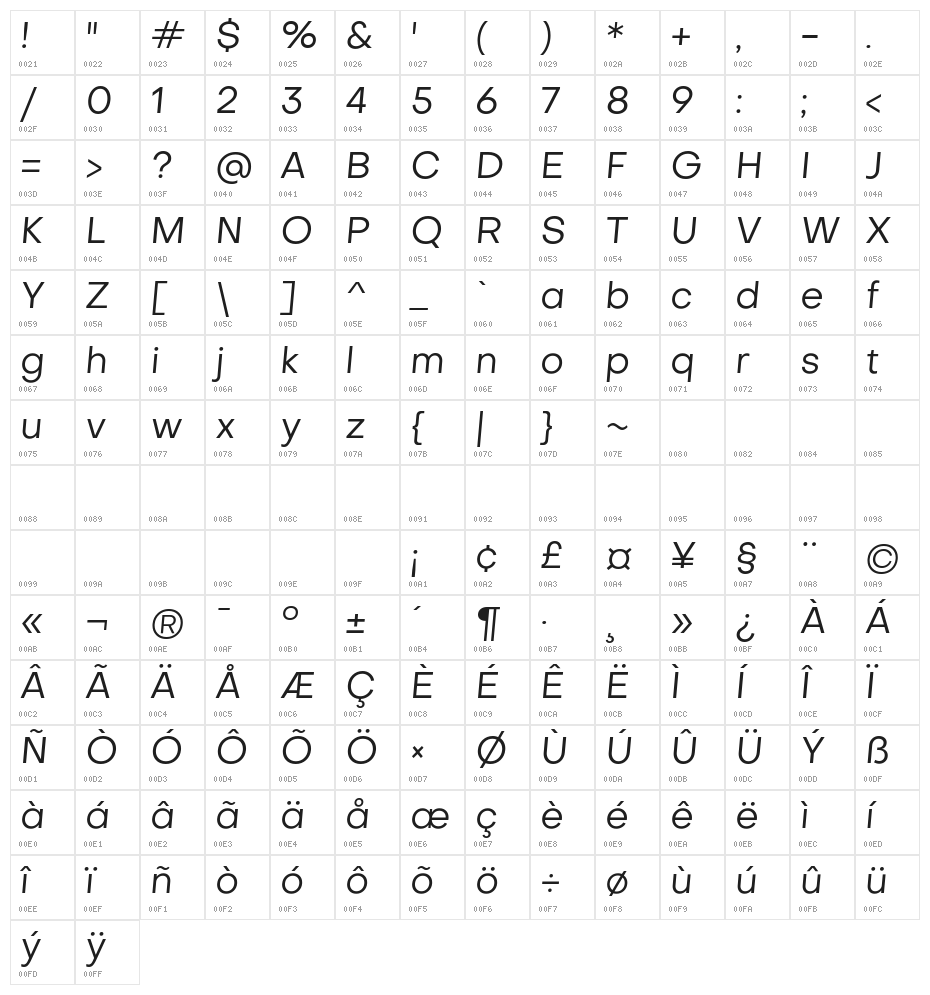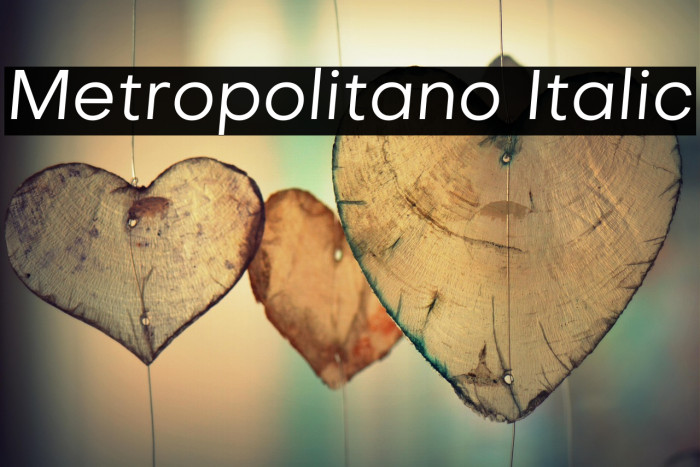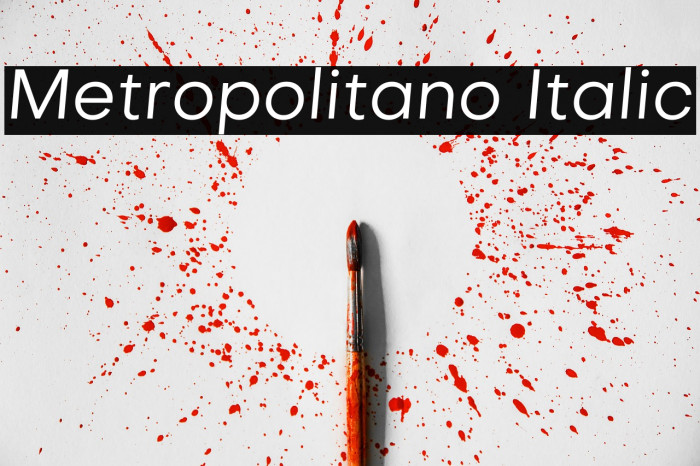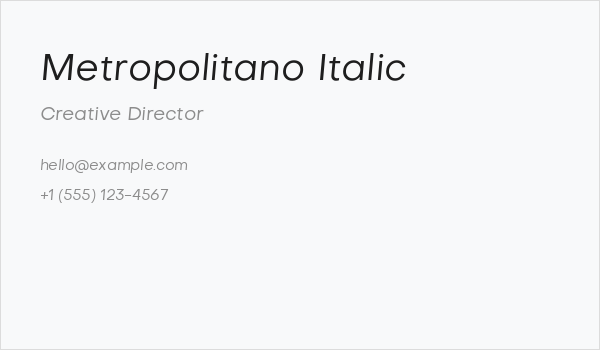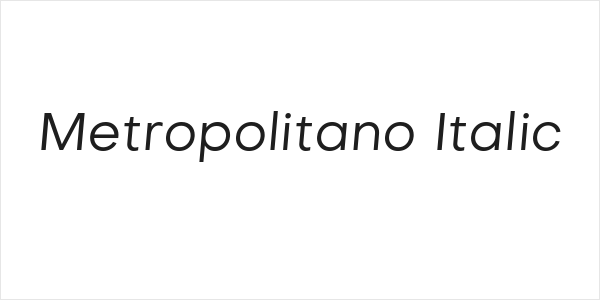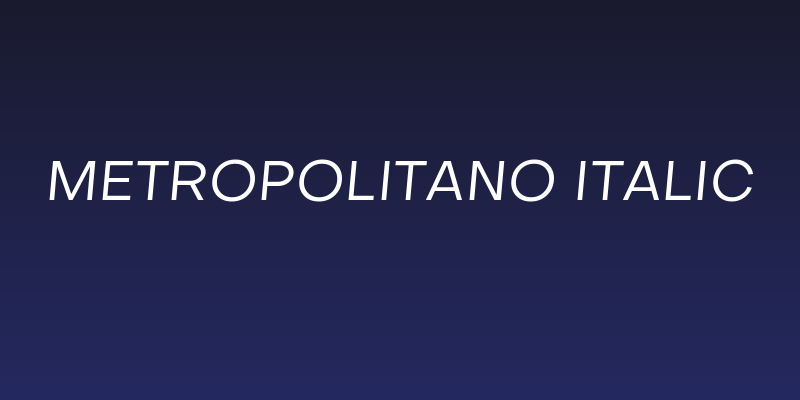
Metropolitano Italic Font
Metropolitano Italic Description
This font exhibits a sleek and modern design with clean lines and a subtle italic slant, giving it a dynamic and sophisticated appearance. The characters are well-proportioned, with a consistent stroke width that maintains readability across various sizes. The uppercase letters are bold and assertive, while the lowercase letters are more rounded, providing a nice contrast. The numerals are clear and distinct, making them suitable for both text and numerical data. The special characters are well-integrated, ensuring versatility in usage.
| Proposed Projects | Ideal for branding, editorial design, websites, and advertising where a contemporary and professional look is desired. |